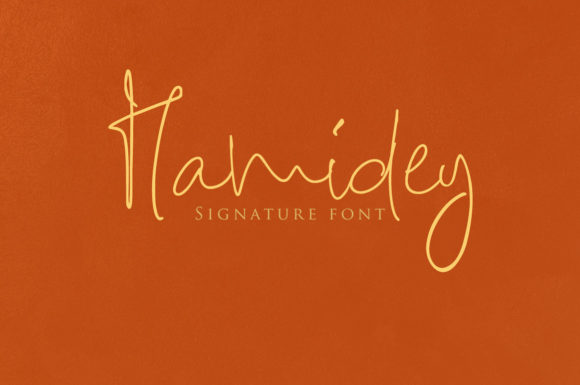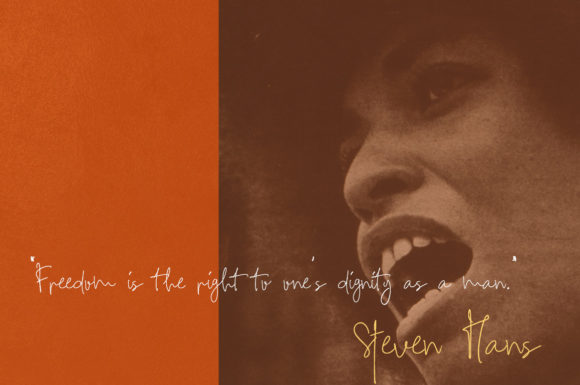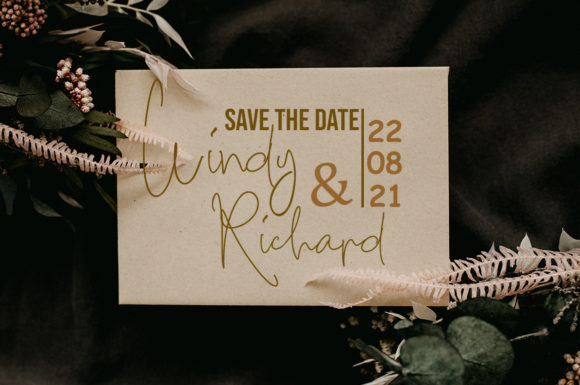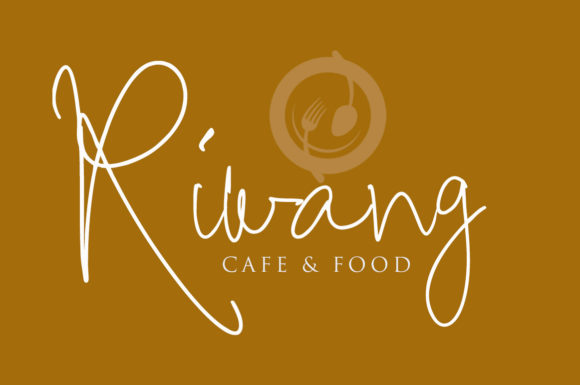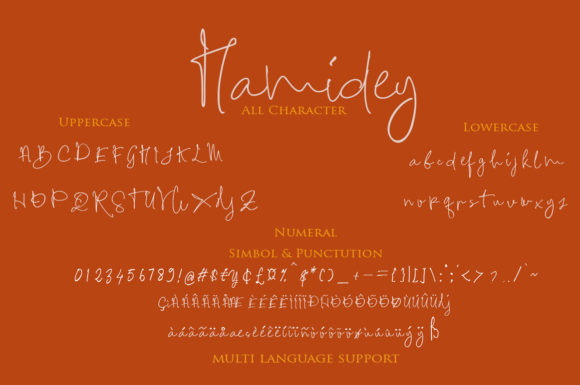
Hamidey Font
Hamidey is an exquisite and luxurious script font with thin, elegant letterforms. This font is meticulously crafted with attention to detail, making it a standout choice for various design projects. With its unique lettering style, Hamidey brings a touch of sophistication and class to any composition.
The thin letterforms of Hamidey exude a sense of delicacy and refinement. The carefully designed curves and strokes create a graceful and elegant appearance, making it perfect for projects that require an upscale and luxurious touch. From branding materials to wedding invitations, Hamidey adds a touch of exclusivity to your designs.
The high level of detail in Hamidey ensures that each character is meticulously shaped and crafted. This attention to detail results in a visually pleasing and well-balanced font. Every letter has been thoughtfully designed to create harmony and cohesion in your typographic compositions.
With its versatility, Hamidey can enhance a wide range of design projects. It is suitable for logo design, branding materials, packaging, product labels, elegant stationery, and more. Whether you’re working on a high-end fashion brand or an upscale restaurant, Hamidey will elevate your designs and give them a luxurious and sophisticated feel.
By adding Hamidey to your font library, you gain a valuable asset that can enhance any creation. Its thin letterforms, luxurious appearance, and meticulous craftsmanship make it a versatile choice that can elevate various design projects.